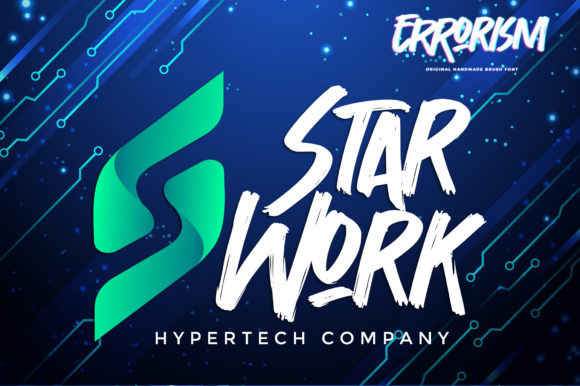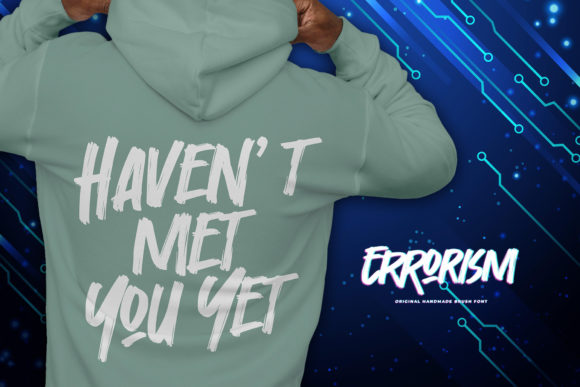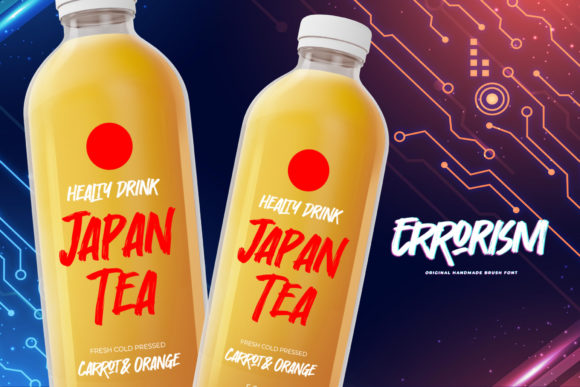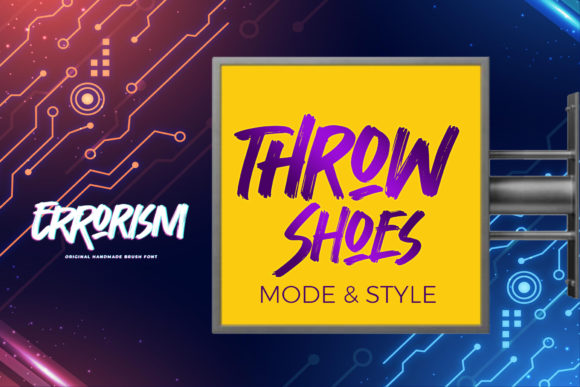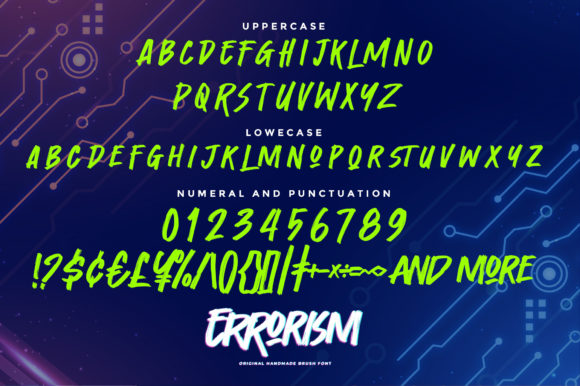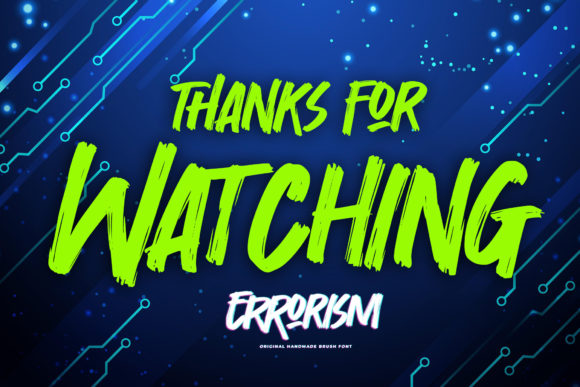
The Birth of Errorism Font: When Imperfection Meets Perfection
Have you ever sat down at your desk, stared blankly at a blank page, and just started writing? The words flow effortlessly, without overthinking or worrying about perfection. That’s exactly the creative moment that inspired the Errorism Font – an original handmade brush font that captures the essence of spontaneity and authenticity.
Errorism Font is more than just a font; it’s a reflection of the human touch. Written casually and quickly, it boasts rough, authentic, and strong characters with a more natural look. This unique font is perfect for designers who want to add a personal touch to their designs, branding projects, logo design, quotes, product packaging, and more.
Errorism Font Key Features
- Font Family: Errorism Font is a sans-serif font family designed for display and text usage.
- Character Set: The font family includes a wide range of characters, including Latin, Cyrillic, and Greek alphabets, as well as punctuation and symbols.
- Unique Characteristics: Errorism Font features a distinctive, distressed aesthetic with a mix of rounded and angular shapes, giving it a unique and eye-catching appearance.
Errorism Font Review
First off, I really like the unique aesthetic of Errorism Font ✨. It’s got a quirky, hand-drawn feel that’s perfect for projects that need a bit of personality. The font is highly customizable, with a wide range of weights and styles to choose from.
The ligatures and swashes are a nice touch, adding a touch of elegance to text-heavy designs ✨. And the font is highly legible, even at smaller font sizes.
What Could Be Improved
While Errorism Font is generally solid, there are a few limitations to consider ⚠️:
- Limited language support: Errorism Font may not be the best choice for projects that require extensive language support, as it’s primarily designed for Latin-based languages.
Overall, I think Errorism Font is a great choice for projects that need a bit of flair and personality. Just be aware of its limitations, and you’ll be golden.
Errorism Font is ideal for:
- Creating unique and eye-catching typography-based designs.
- Adding a touch of personality to presentations and documents.
- Developing custom graphics and logos.
- Experimenting with unconventional text arrangements and layouts.